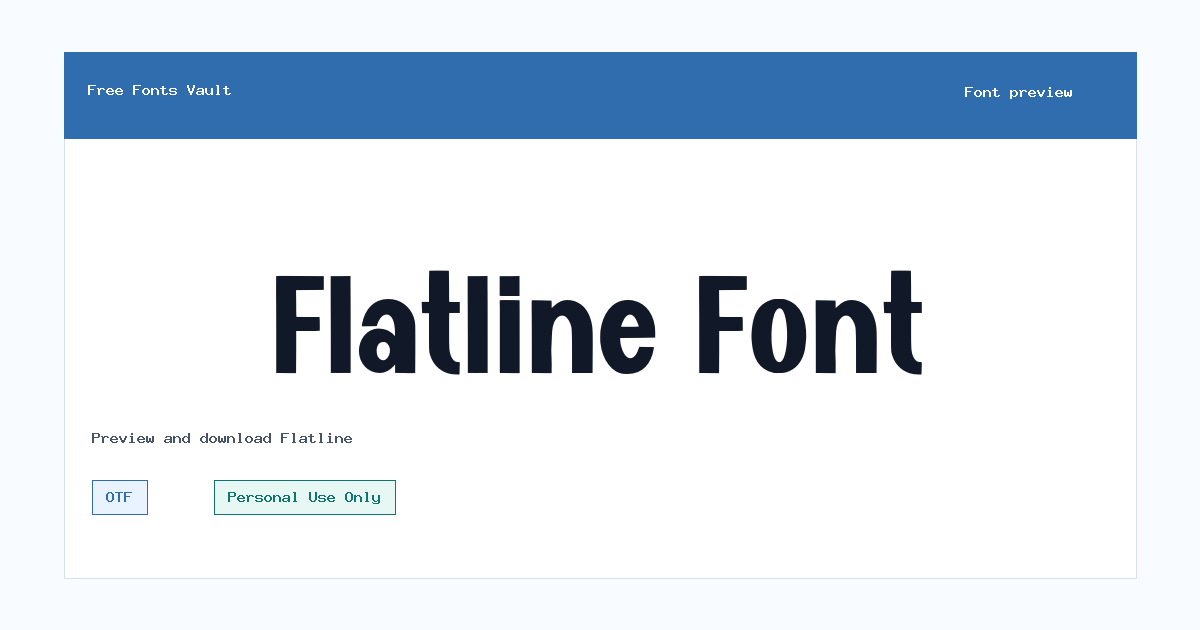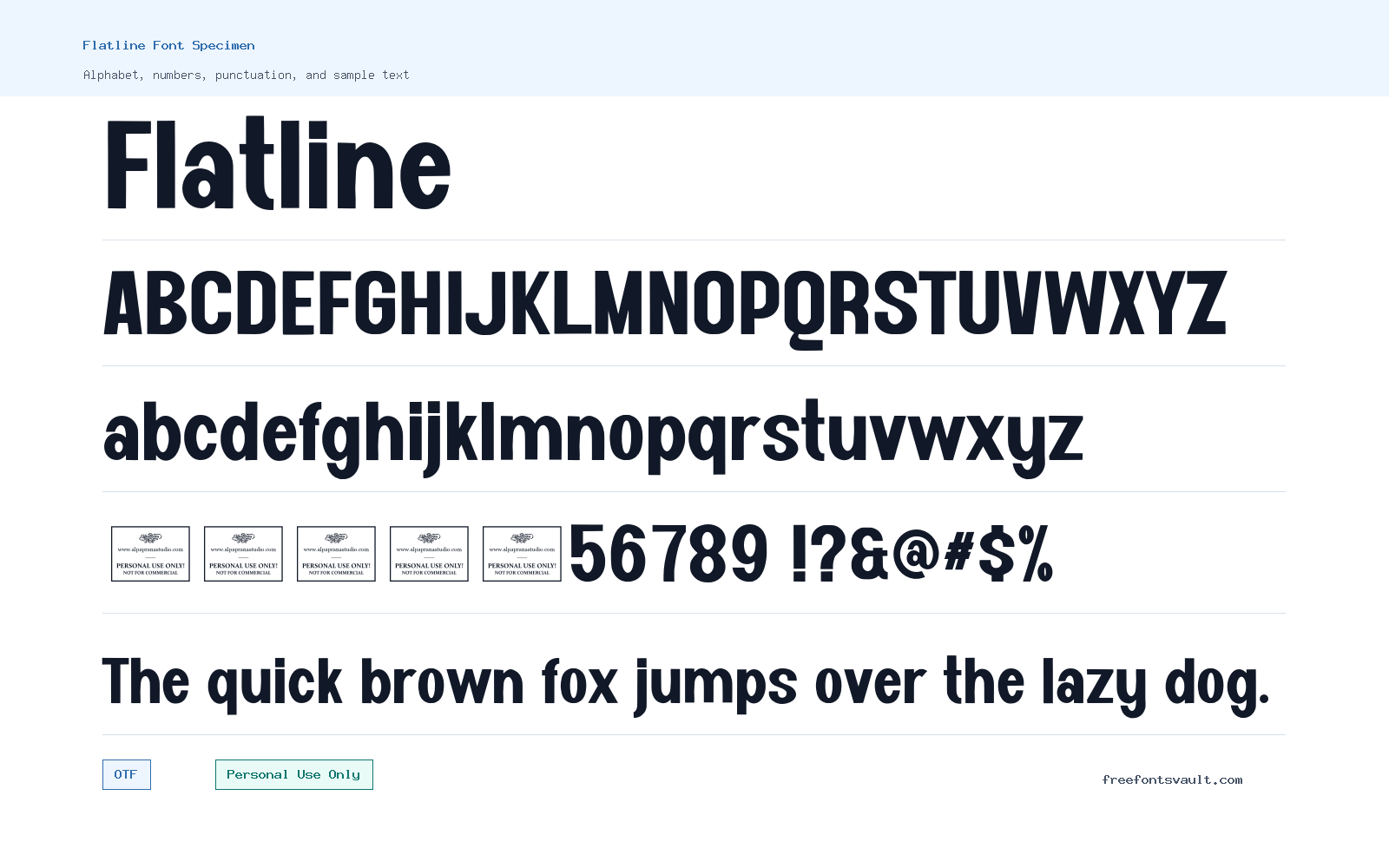
Flatline
Flatline font preview showing the family name
Flatline Font
Flatline font specimen showing alphabet, numbers, and sample text
Flatline font.
Flatline is a sans serif display font with a clean, modern look for short text, branding drafts, and bold visual layouts. It comes as an OTF font file and is marked for Personal Use Only, so it is best suited for personal projects unless you secure the right license for client or commercial work.
About Flatline Font
Flatline works best when you need a crisp sans serif voice without a lot of decorative detail. Its regular style and normal weight make it easy to test in the preview tool for names, headings, social graphics, poster lines, and logo-style text. Because the family is represented here by one regular OTF file, the design is most practical for display use rather than complex typography systems that need several weights or italics.
Try Flatline with short words first. Fonts in this kind of clean display category often show their personality in spacing, letter shape, and how uppercase and lowercase forms sit together. Preview your exact text before downloading, especially if you plan to use it for a brand mockup, thumbnail, invitation, or header. For longer paragraphs, pair it with a plain body font that keeps reading comfortable, and let Flatline handle the headline or accent text.
• Clean sans serif style suited to short display text and title work
• Logo drafts, personal branding concepts, and name-based designs
• Posters, social media graphics, thumbnails, headers, and short titles
Use the preview tool to check your own wording before downloading. Test both uppercase and lowercase letters, look closely at spacing in short names or headlines, and avoid relying on it for long body copy unless the preview remains easy to read at smaller sizes.
What is Flatline best used for?
Flatline is best for short, visible text such as titles, logo drafts, posters, social graphics, and display headings. It is less ideal for long paragraphs because only one regular style is listed.
Should I pair Flatline with another font?
Yes. For a balanced layout, use Flatline for the main title or accent text and pair it with a simple, readable sans serif or serif font for body copy.